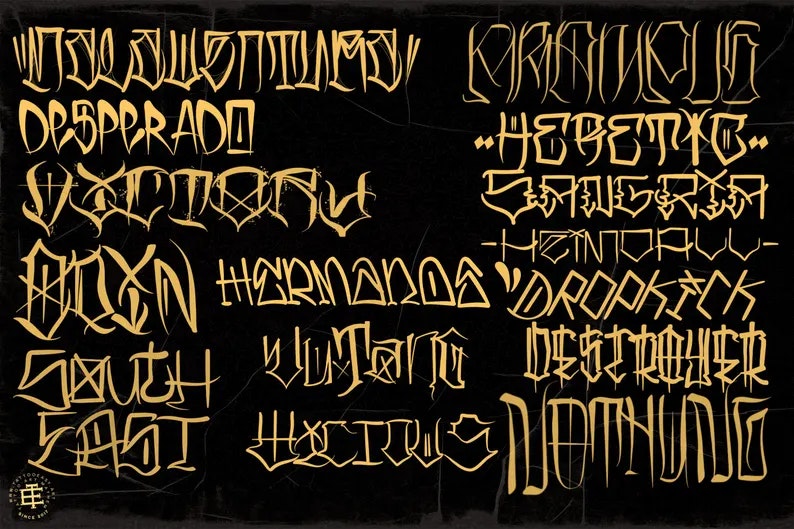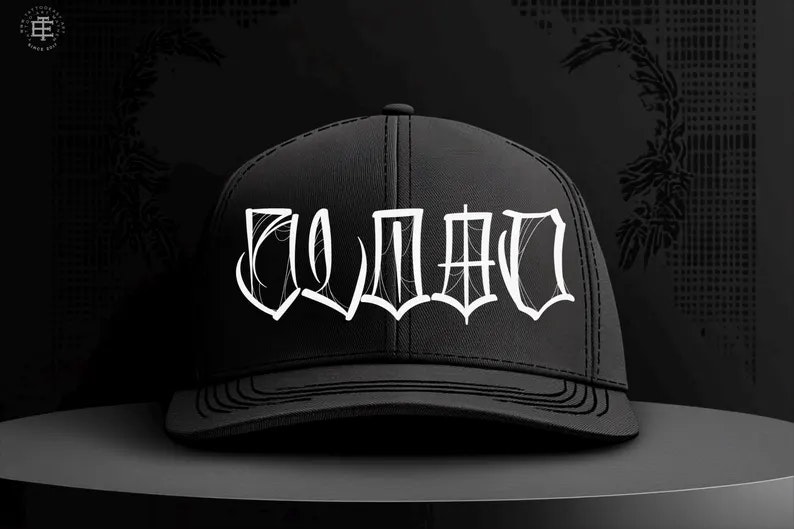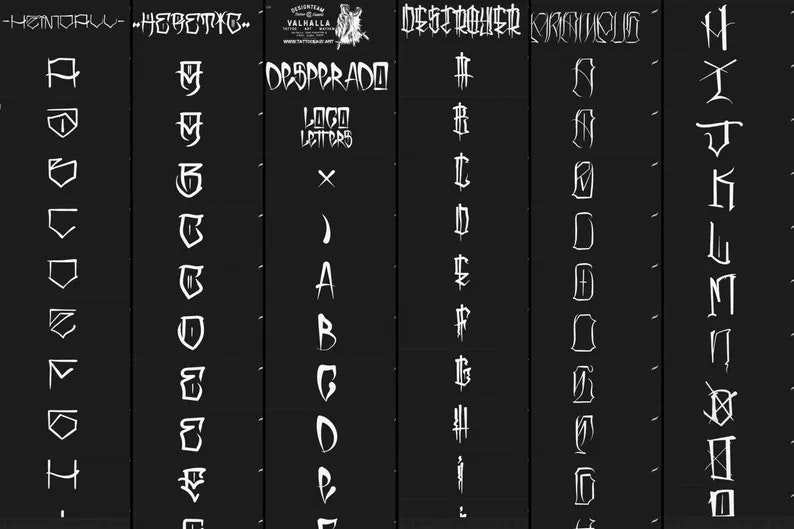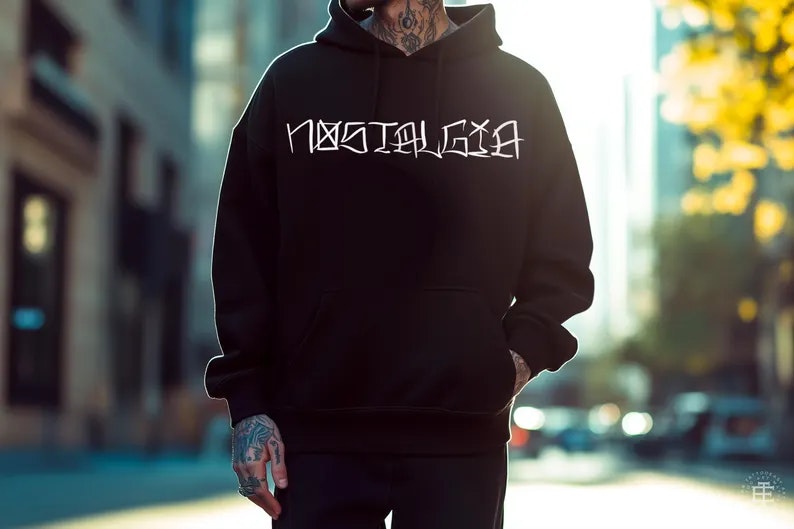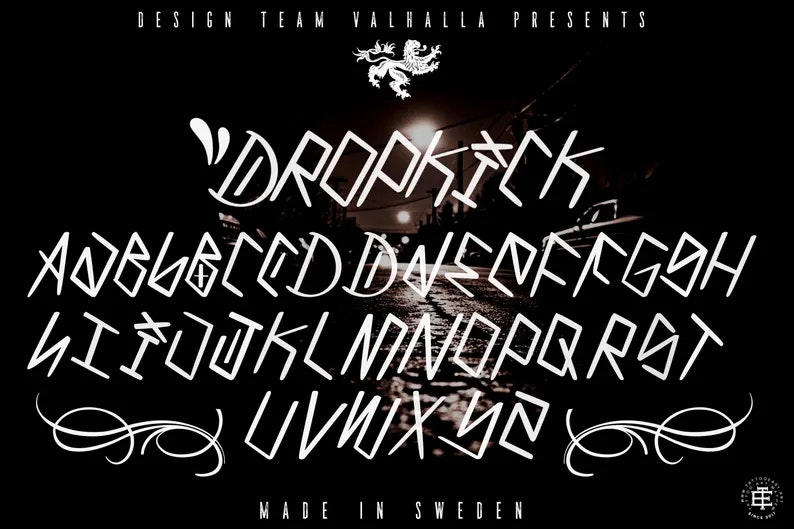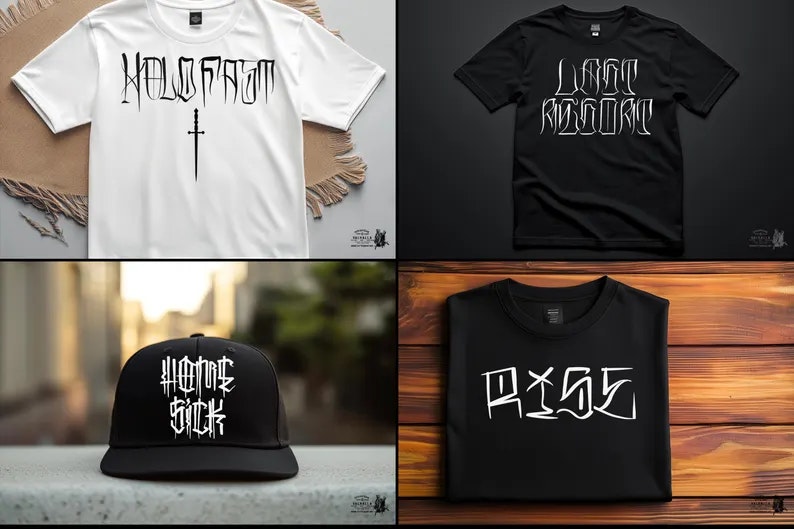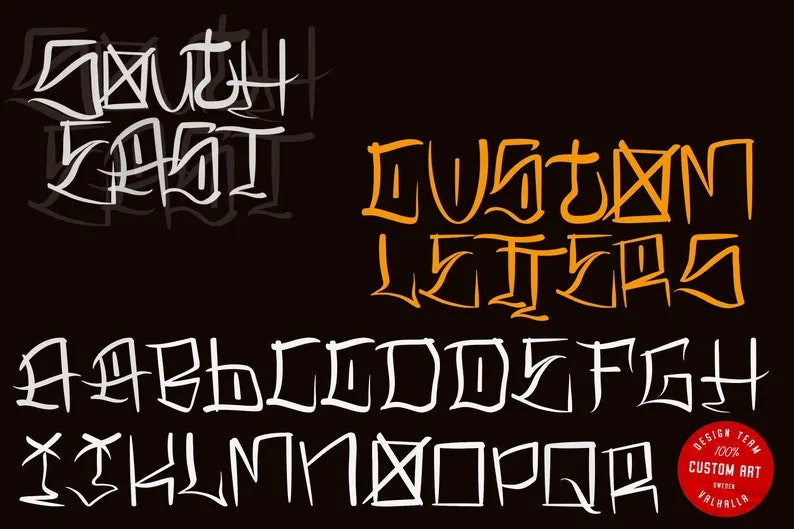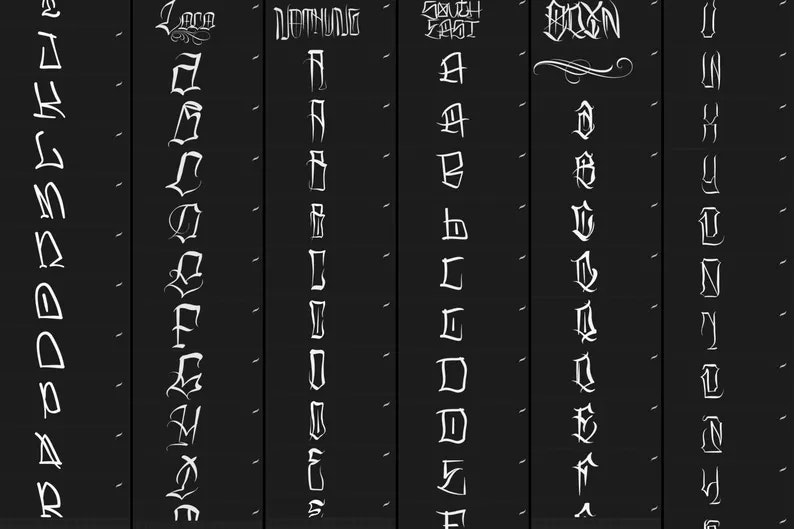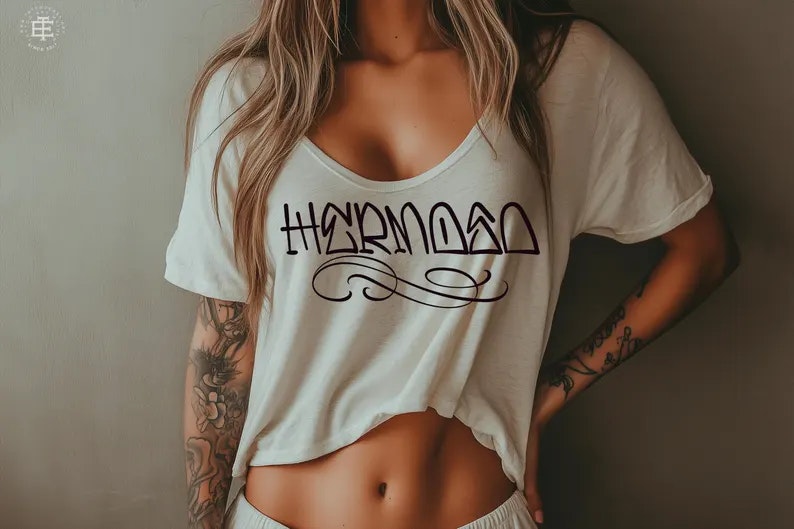
Procreate, Tattoo lettering 4, 16 custom fonts + extras
Introducing Tattoo Lettering Bundle Vol. 4 – Elevate Your Art!
Dropkick
Vicious
Destroyer
Los pollos hermanos
Krampus
Heretic
Heimdall
South east
Desperado
Wild
Nothung
Odin
Wu-tang
Malaventura
Sangria duo
Victory
Step up your creative game with our latest Tattoo Lettering Bundle for Procreate – Volume 4, the most anticipated collection yet! Every single letter in this bundle has been carefully hand-drawn, blending the raw, authentic spirit of tattoo culture with unparalleled versatility. Perfect for tattoo art, sticker designs, T-shirt graphics, and logo work, this collection offers endless possibilities to bring your boldest ideas to life.
With over 700 unique designs, this bundle is a powerhouse of inspiration, giving artists all around the globe the tools to craft stunning and professional-quality lettering. Loved by tattoo enthusiasts, urban designers, and creative professionals worldwide, this volume continues the legacy of excellence established by our previous collections.
Whether you're designing for clients or creating personal projects, Tattoo Lettering Bundle Vol. 4 is your go-to resource for iconic and impactful lettering. Let your imagination run wild and watch your designs make a statement that lasts forever.